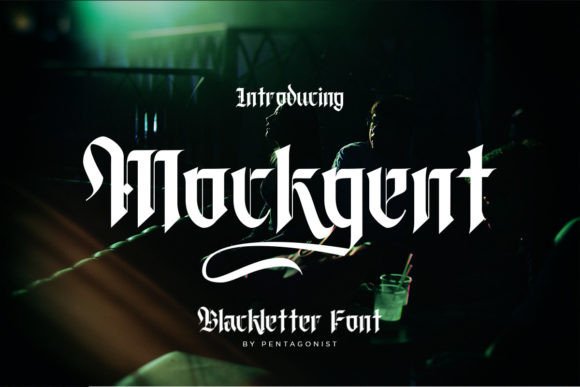
Unleash the Bold and Refined: Introducing Mockgent Font, the Epitome of Strength and Character.
In a world of monotonous fonts, Mockgent Font stands tall, a beacon of strength and distinction. This blackletter font is not just a collection of letters; it's an artistic expression of power and sophistication, crafted to elevate your designs to new heights.
Mockgent Font is the embodiment of boldness and character. Its thick lines demand attention, while its intricate details and elegant curves add a touch of sophistication to any project. It's the perfect font for logos, headlines, and anything that requires a touch of gravitas and grandeur.
Step into the realm of captivating typography with Mockgent Font, a font that captivates and commands attention. Its unique blackletter style exudes a regal aura, evoking a sense of history and tradition. Let your designs radiate confidence and authority with Mockgent Font as your chosen typeface.
The versatility of Mockgent Font is truly remarkable. Whether you're creating logos, posters, branding materials, or even website designs, this font seamlessly adapts to your creative vision. Its bold strokes and distinct letterforms leave a lasting impression, ensuring your designs stand out from the ordinary.
With Mockgent Font, you hold the key to unlocking a world of design possibilities. Let your imagination soar as you craft logos that exude strength and stability, headlines that command attention, and designs that speak volumes about your brand's identity.
Don't settle for ordinary fonts that blend into the background. Embrace the power of Mockgent Font and watch your designs transform into masterpieces of visual communication. Its bold presence will elevate your projects to new heights, leaving an indelible mark on your audience.